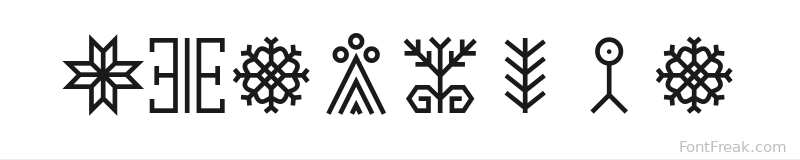
Auseklis
About Auseklis
The Auseklis font, designed by GGBot, is a unique decorative typeface that brings an artistic flair to any project. This freeware font features a combination of geometric shapes and organic forms, resulting in a visually striking style that sets it apart from conventional fonts. The stroke weight is consistent, with a moderate contrast that gives the characters a clean yet playful appearance. The spacing between letters is well-balanced, enhancing readability while allowing the decorative elements to shine.
Auseklis is particularly well-suited for a variety of creative applications. Graphic designers looking to add a touch of whimsy to their work will find it ideal for use in wedding invitations, where its intricate designs can evoke a sense of elegance and celebration. Additionally, the font works beautifully in restaurant menus, offering an inviting look that can enhance the dining experience. It's also a great choice for event posters, where its unique style can attract attention and create a memorable visual impact. Content creators seeking to establish a distinctive brand identity will appreciate its versatility for use in logos and social media graphics.
The target audience for Auseklis includes graphic designers, small business owners, and content creators who are eager to explore innovative typography in their projects. This font allows for creativity while providing the functionality needed for professional design work.
What makes Auseklis stand out is its blend of artistic expression and practicality. The decorative elements draw the eye, making it a conversation starter while still maintaining clarity and readability. For anyone in search of a fresh, engaging typeface, the Auseklis font free download offers an excellent opportunity to elevate their designs and make a lasting impression.